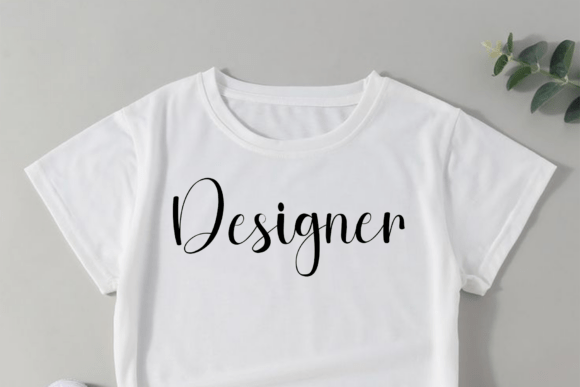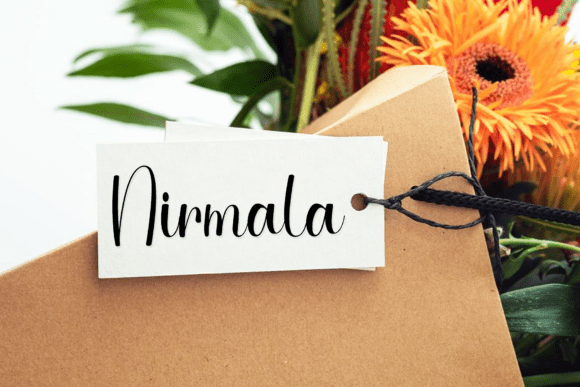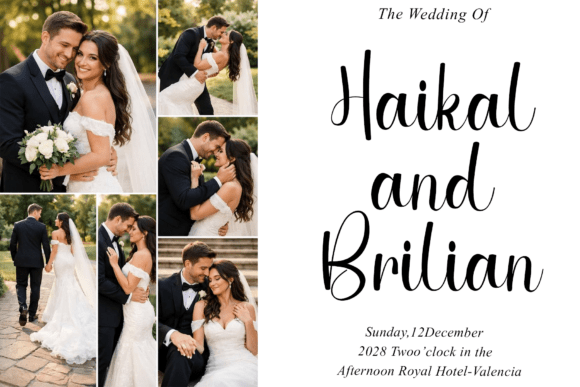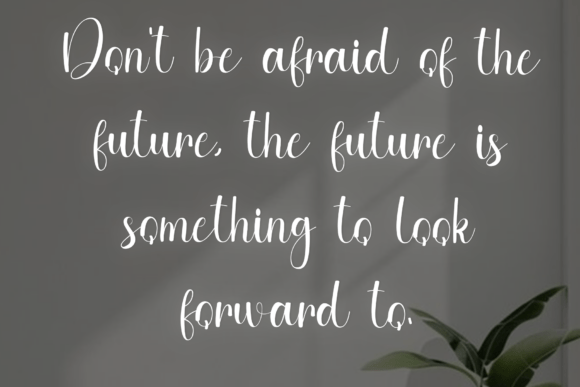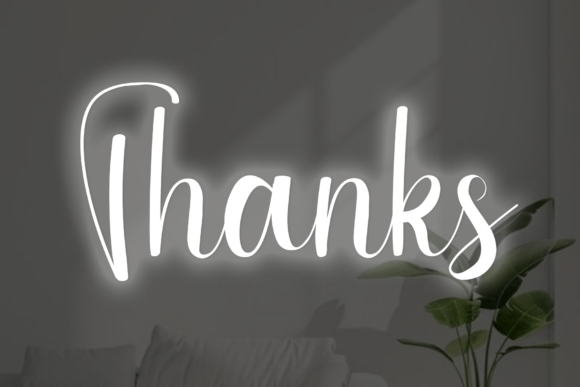
Introducing Brillian Font: Elevate Your Design with Elegance and Sophistication
In the world of typography, a font can make or break the aesthetic of a design project. For designers and crafters seeking to add a touch of luxury and sophistication to their work, Brillian Font is an exceptional choice. This beautifully flowing and elegant modern handwritten script font is designed to bring a sense of refinement and elegance to any project.
The Characteristics of Brillian Font
Brillian Font boasts smooth, generous curves and graceful, elongated strokes that give it a sophisticated, signature look. Its unique and professional design makes it perfect for a variety of applications, from personal branding to luxury wedding stationery. The font’s flowing lines and natural feel evoke a sense of authenticity, making it an excellent choice for designers looking to add a personal touch to their work.
Brillian Font’s versatility makes it an excellent choice for a wide range of design projects. Some of the ideal uses for this font include:
- Personal Branding: Establish a luxurious and sophisticated image with Brillian Font, perfect for logos, business cards, and other marketing materials.
- Photography Watermarks: Add a touch of elegance to your photographs with a subtle yet distinctive watermark.
- Luxury Wedding Stationery: Create beautiful and sophisticated wedding invitations, menus, and other stationery with Brillian Font.
- Editorial Design: Elevate your editorial designs, such as magazine articles and blog posts, with a font that exudes refinement and style.
Why Choose Brillian Font?
With so many fonts available, why choose Brillian Font? Here are just a few reasons why designers and crafters are falling in love with this beautiful typeface:
- Unique and Professional: Brillian Font’s distinctive design sets it apart from more traditional fonts, giving your work a professional and polished look.
- Elegant and Sophisticated: The font’s smooth curves and elongated strokes evoke a sense of luxury and refinement, perfect for high-end designs.
- Authentic and Natural: Brillian Font’s flowing lines and natural feel make it an excellent choice for designers seeking to add a personal touch to their work.
Tips for Using Brillian Font Effectively
To get the most out of Brillian Font, here are a few tips to keep in mind:
- Use it Sparingly: Brillian Font’s elegance and sophistication make it perfect for headlines and titles, but use it sparingly to avoid overwhelming the reader.
- Pair it with a Serif Font: Combining Brillian Font with a serif font can create a beautiful contrast and add visual interest to your design.
- Experiment with Colors: Brillian Font looks stunning in a variety of colors, from rich jewel tones to metallic shades.
Brillian Font is a beautifully designed, modern handwritten script font that is perfect for designers and crafters seeking to add a touch of elegance and sophistication to their work. Its unique and professional design, combined with its versatility and natural feel, make it an excellent choice for a wide range of design projects. Whether you’re looking to establish a luxurious brand image, create stunning wedding stationery, or simply add a personal touch to your designs, Brillian Font is an exceptional choice.